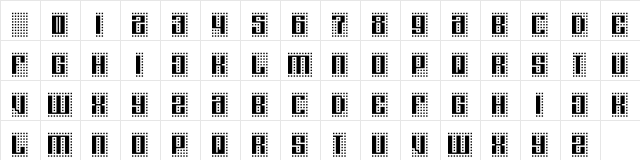
ComputerAmok Regular
Design Context for ComputerAmok Typeface
ComputerAmok is a composed and adaptable typeface that performs quietly and consistently across a wide range of design contexts.